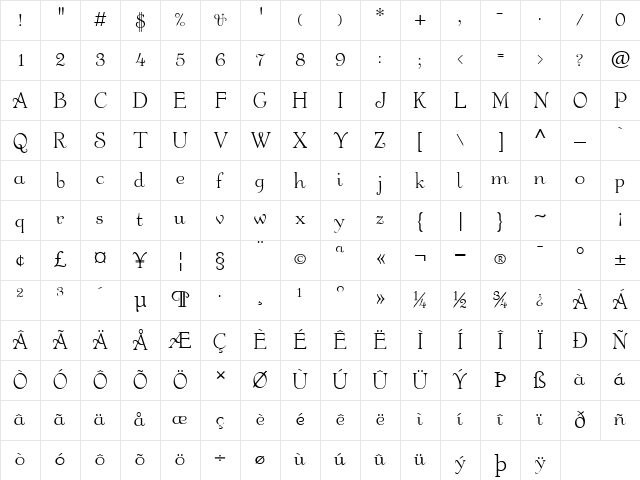
Complete Fanciful Normal glyph index. Displaying only characters natively supported by Fanciful Normal font.
Fanciful is a composed and adaptable typeface that performs quietly and consistently across a wide range of design contexts.